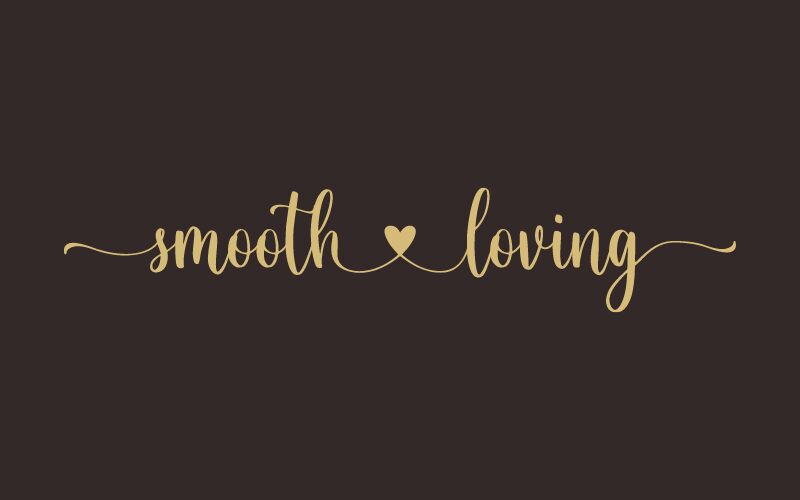
Smooth Loving
Elevate your design to a realm of elegance with 'Smooth Loving,' a calligraphy masterpiece from the creative minds at Nirmana Visual. This semi-light font weaves grace with contemporary flair, encapsulating a handwriting-like touch that brings warmth and personality to any project. Its sweeping curves and delicate strokes embody romance and sophistication, making it an impeccable choice for wedding invitations, branding, and editorial designs.
'Smooth Loving' effortlessly marries the timeless beauty of traditional calligraphy with the versatility required for modern applications. Whether you're crafting heartfelt greetings or setting the tone for boutique labels, this font's distinctive charm ensures your message is not just seen but felt. Embrace its potential to transform words into visual poetry that resonates across both digital landscapes and printed elegance.
Smooth Loving by Nirmana Visual,